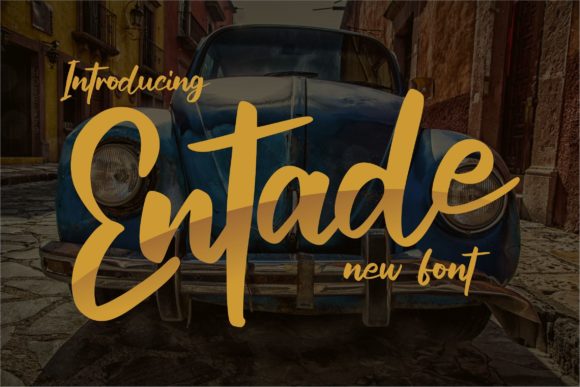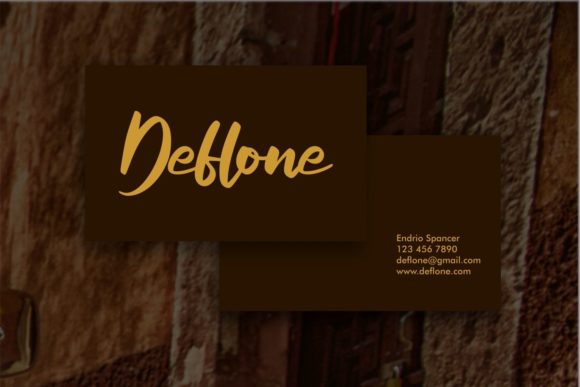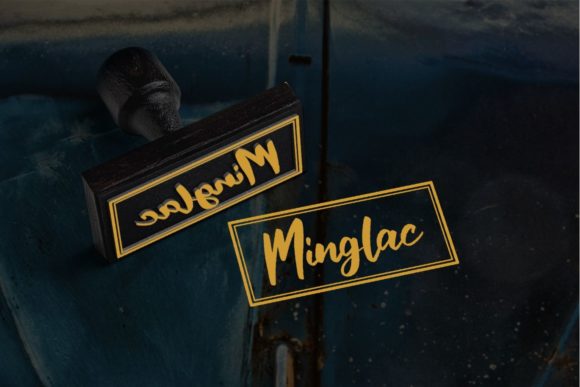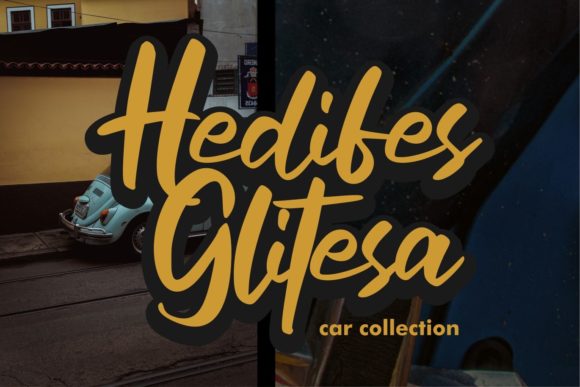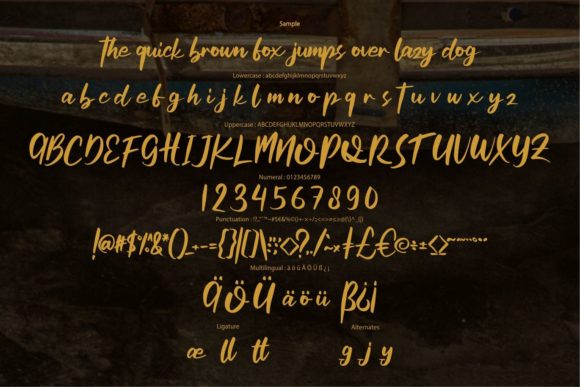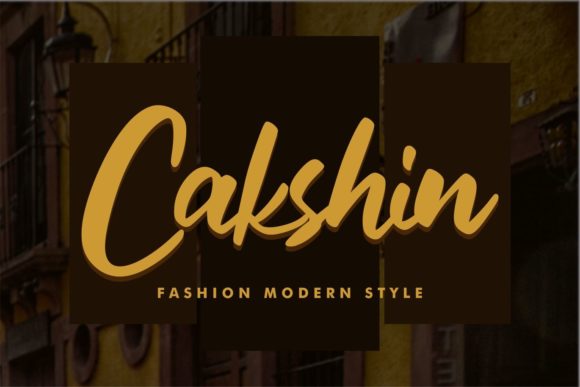
Entade Script Font
Entade Script is a chic, trendy script font that emanates confidence and versatility. Its stylish alternates and ligatures make this font the perfect match for any project.